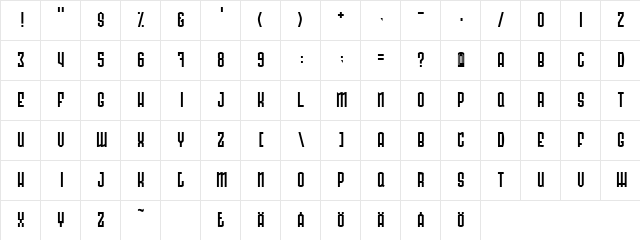
Complete Radonator Normal glyph index. Displaying only characters natively supported by Radonator Normal font.
Radonator is a composed and adaptable typeface that performs quietly and consistently across a wide range of design contexts.